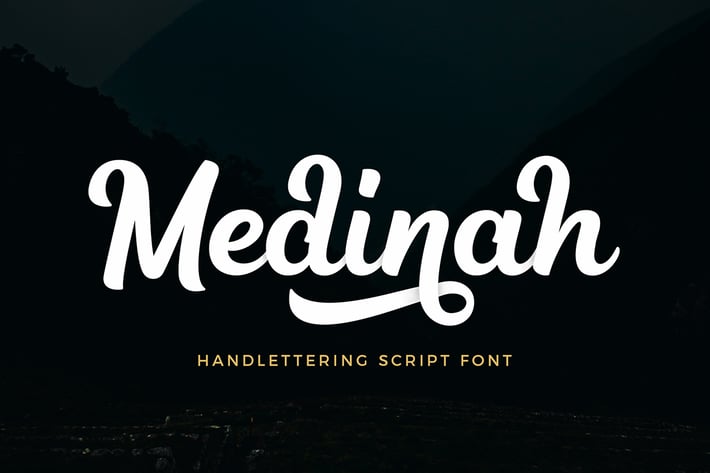
Medinah Script Font
Medinah is a stunning and bold script, completely suitable for a large number of designs. This font will leave you breathless, and give all your designs the impact they need to stand out from the crowd.
- Stylistic Sets
- International characters (Multilingual)